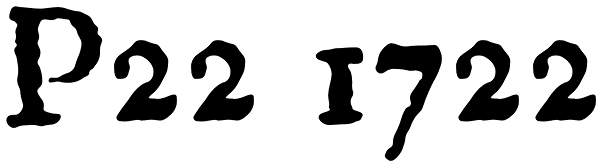
P22 1722
An historical font based on early 18th century printing, with the visual effect of uneven inking and indifferent presswork on handmade paper. Ideal for evoking the period. Effective in continuous text setting or in display sizes.
P22 1722 Italic
P22 1722
P22 1722 Small Caps
P22 1722 Swash
P22 1722 Xtras
P22 1722 Pro Italic
P22 1722 Pro